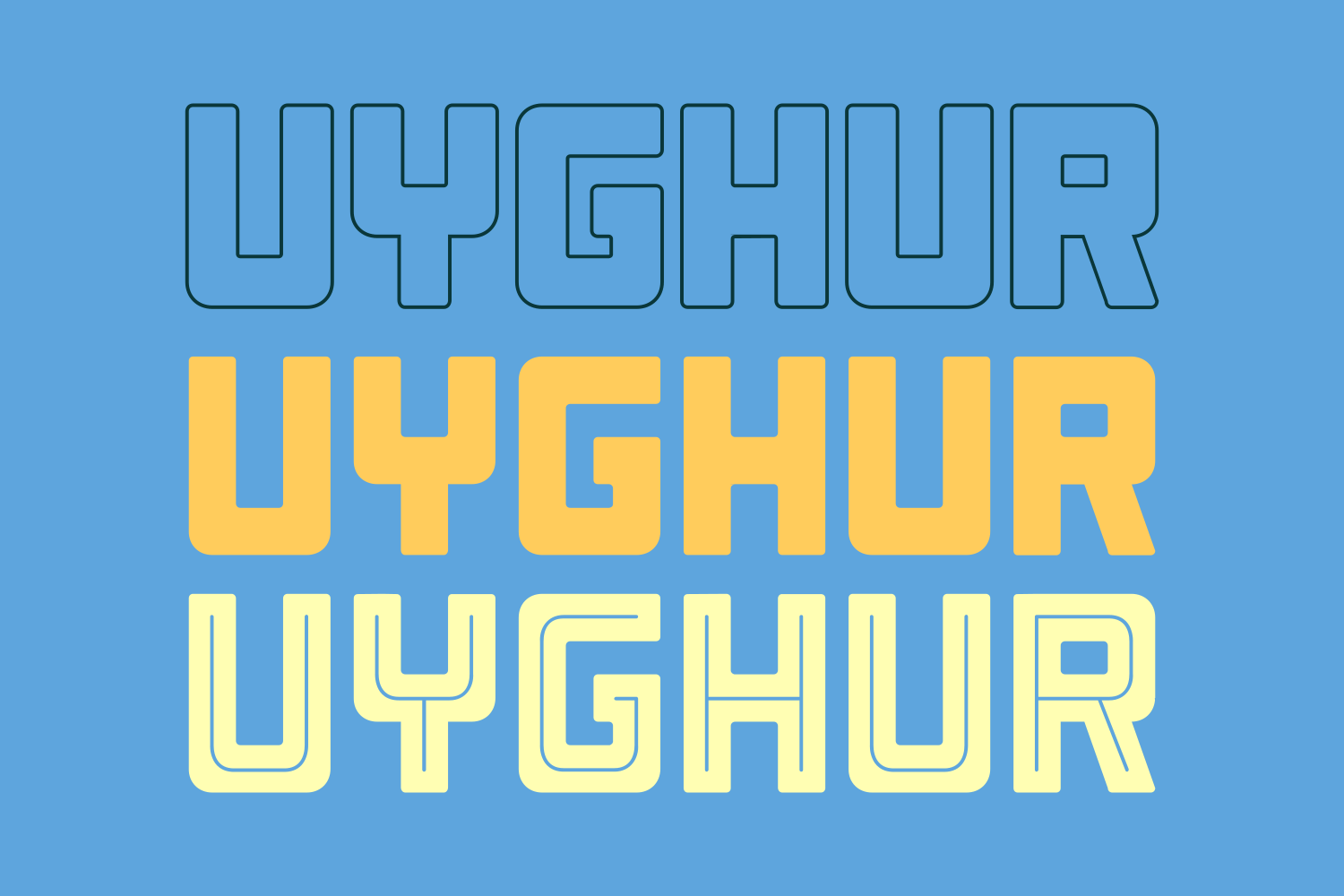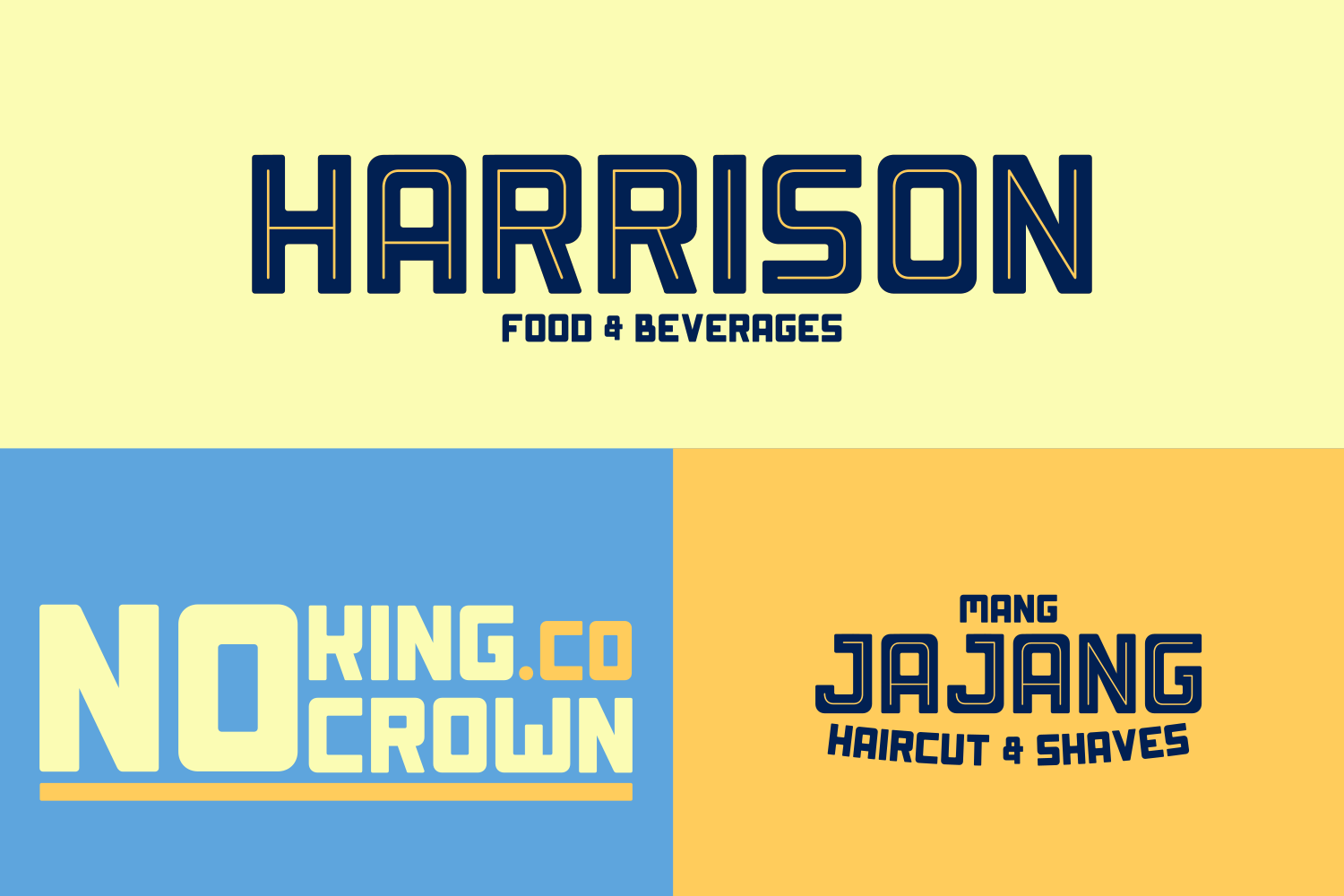
Uyghur Retro Font
Hi there! Introducing Uyghur a clean font with retro style.
Uyghur have 3 styles,there are regular,inline,and outline tomake your design more cool !.
Uyghur is very suitable to many project like logo,title,book cover,poster and more.